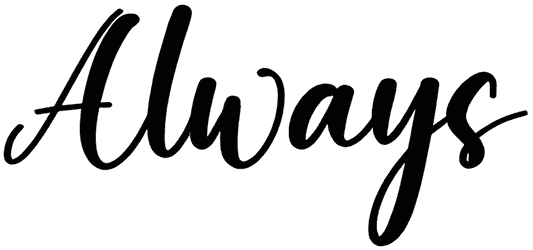
Always Font
For all your banner, invitation, and greeting card needs, you can’t go wrong with Always, a lovely handwritten font. You may jump right into making something truly original and eye-catching with this invitation font. Would you like to check out the rest of our font list in RB? It’s full of freebies that are just as useful as the one you just went to.